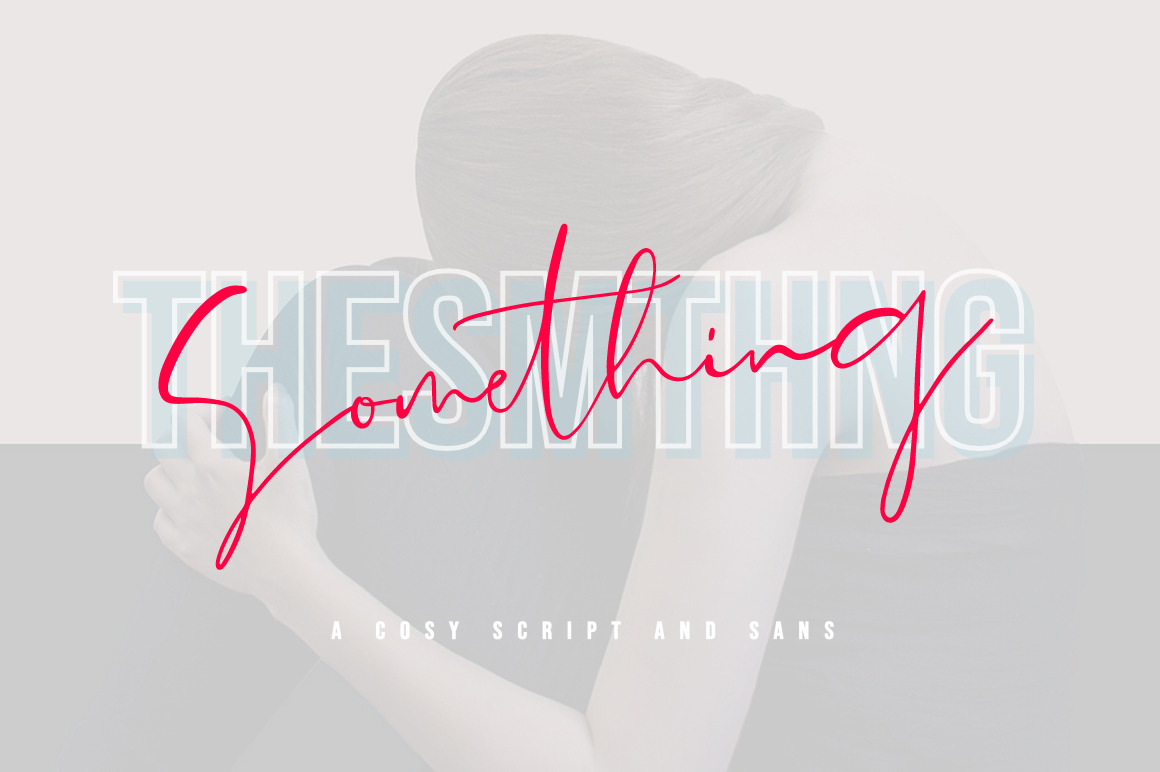
Introducing the elegant new The Something Font Duo! For those of you who are needing a touch of elegance and modernity for your designs, this font was created for you!
The quality is very bad. The contours of the letters are irregular.
Love this font! It's the main logo font for one of the companies I work for and we use it all the time. Fits our aesthetic so well!